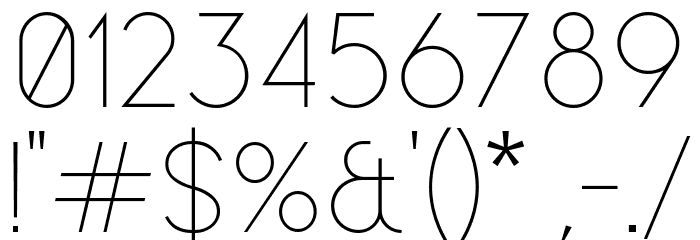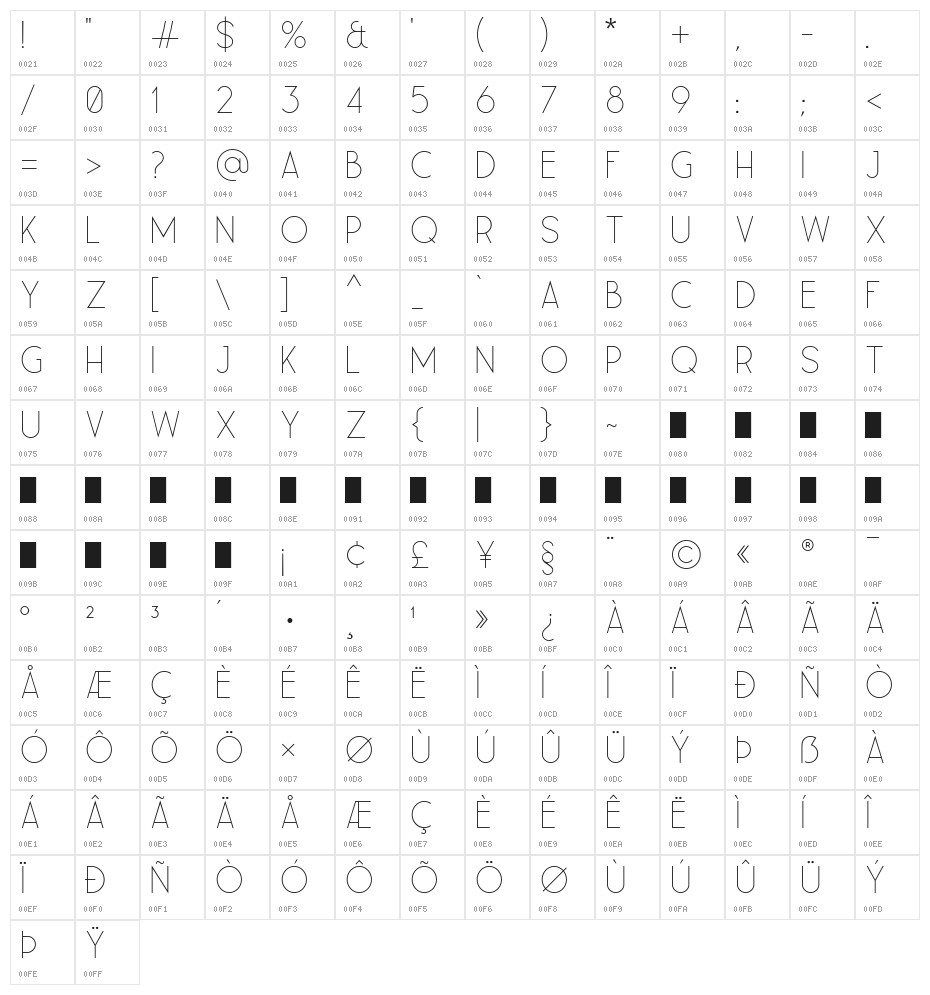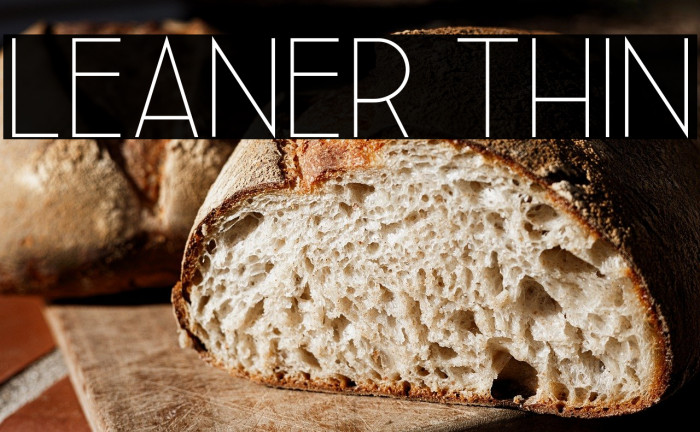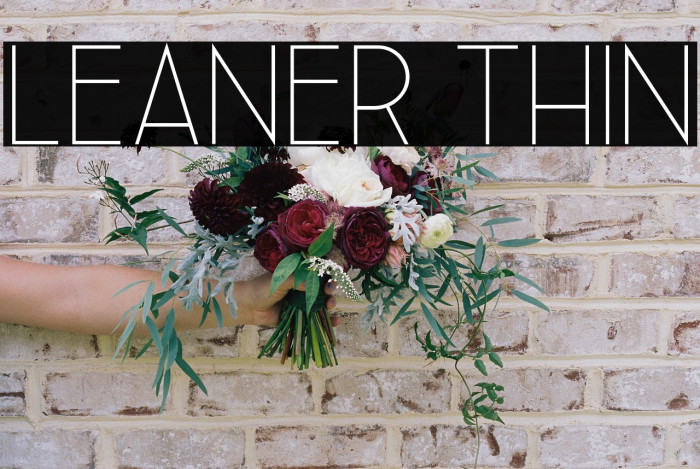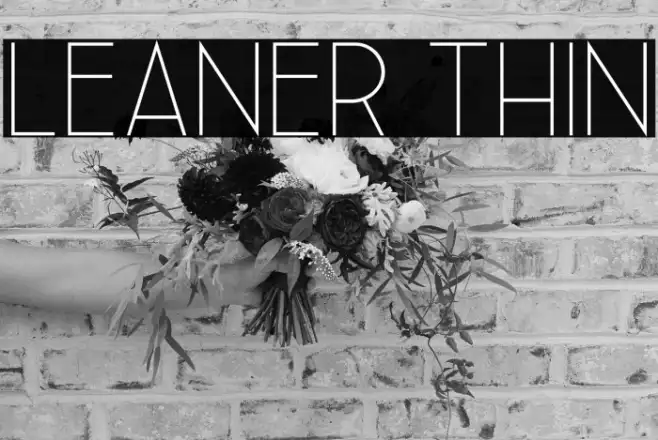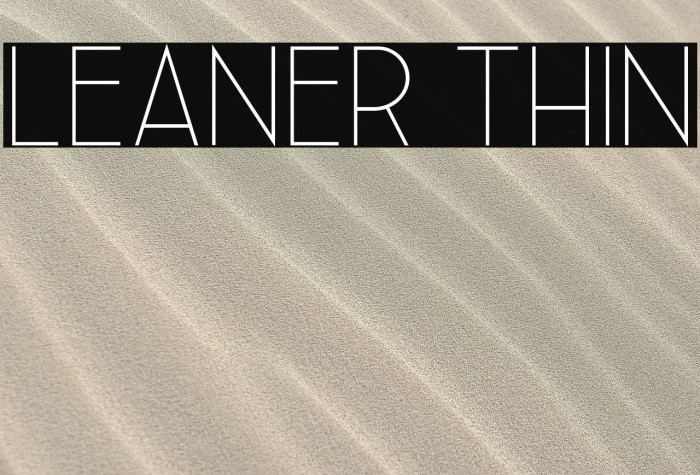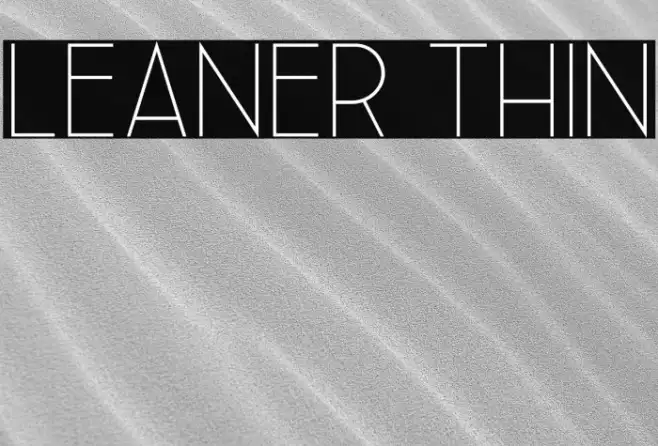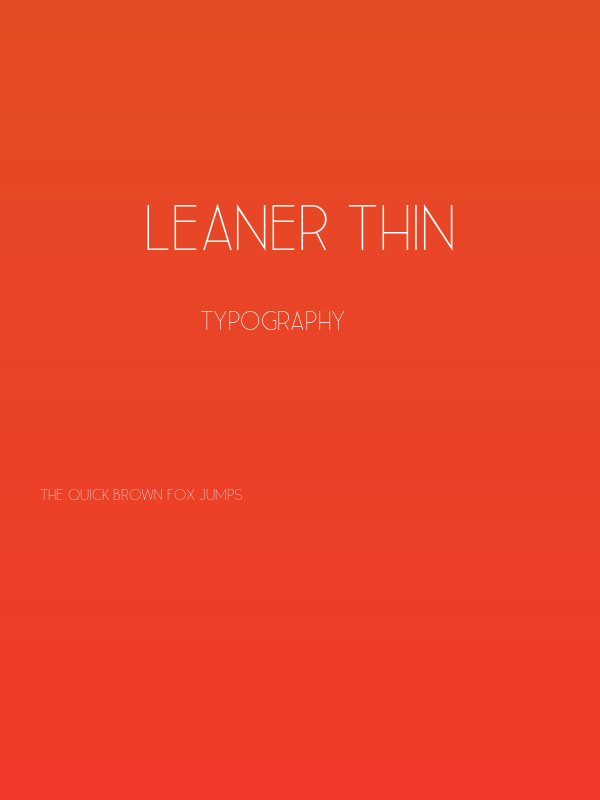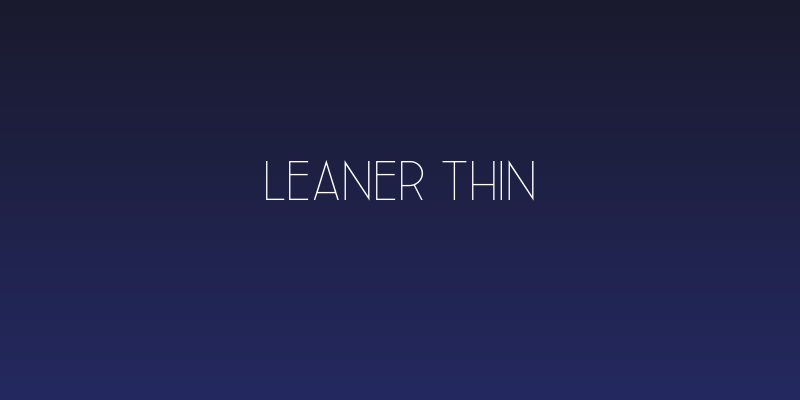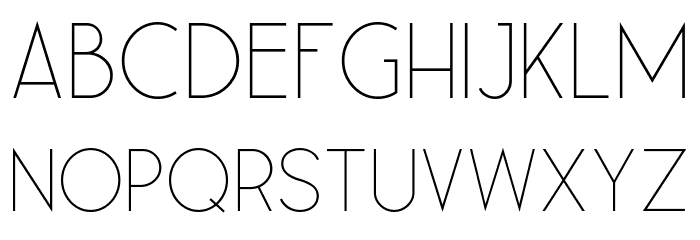
Leaner Thin Font
Leaner Thin Description
This font features a clean, minimalist design with thin, uniform strokes that create an elegant and modern appearance. The characters are evenly spaced, providing a balanced and airy feel. The uppercase and lowercase letters maintain a consistent height, contributing to a harmonious look. The numerals and special characters are designed with the same thin strokes, ensuring a cohesive style throughout. This font's simplicity and clarity make it versatile for various design applications.
| Proposed Projects | Ideal for modern branding, minimalist posters, elegant invitations, and clean web design. |